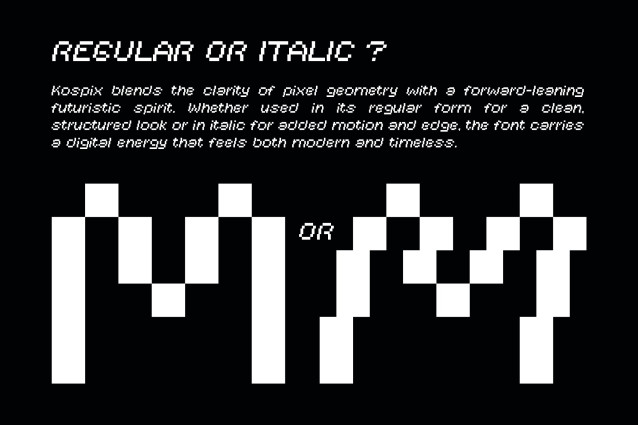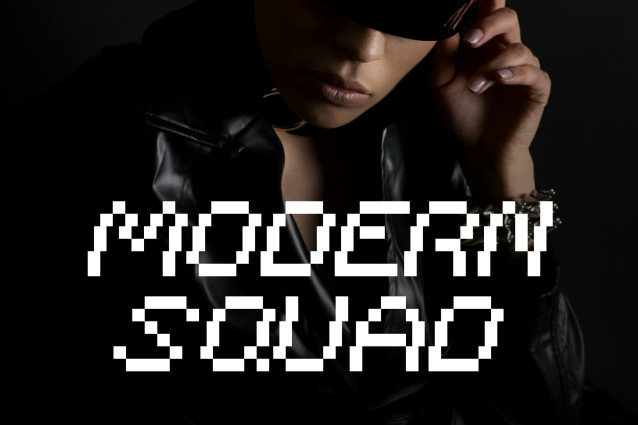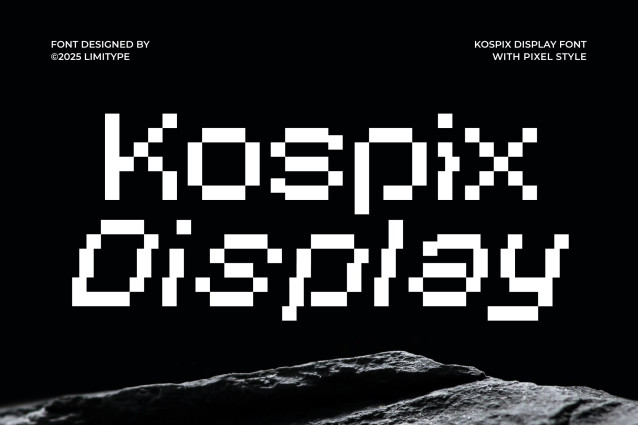
Kospix – Pixel Font
Kospix – Pixel Font is a pixel display font whose vintage aesthetic acts as a time machine ready to bring you back to the beginning of the Internet. You can use it with ease on any of your retro and contemporary designs. It works great for headlines or body copy. And it will look amazing in logos, editorials, clothing advertising, package designs, and anything that requires a vintage feel.